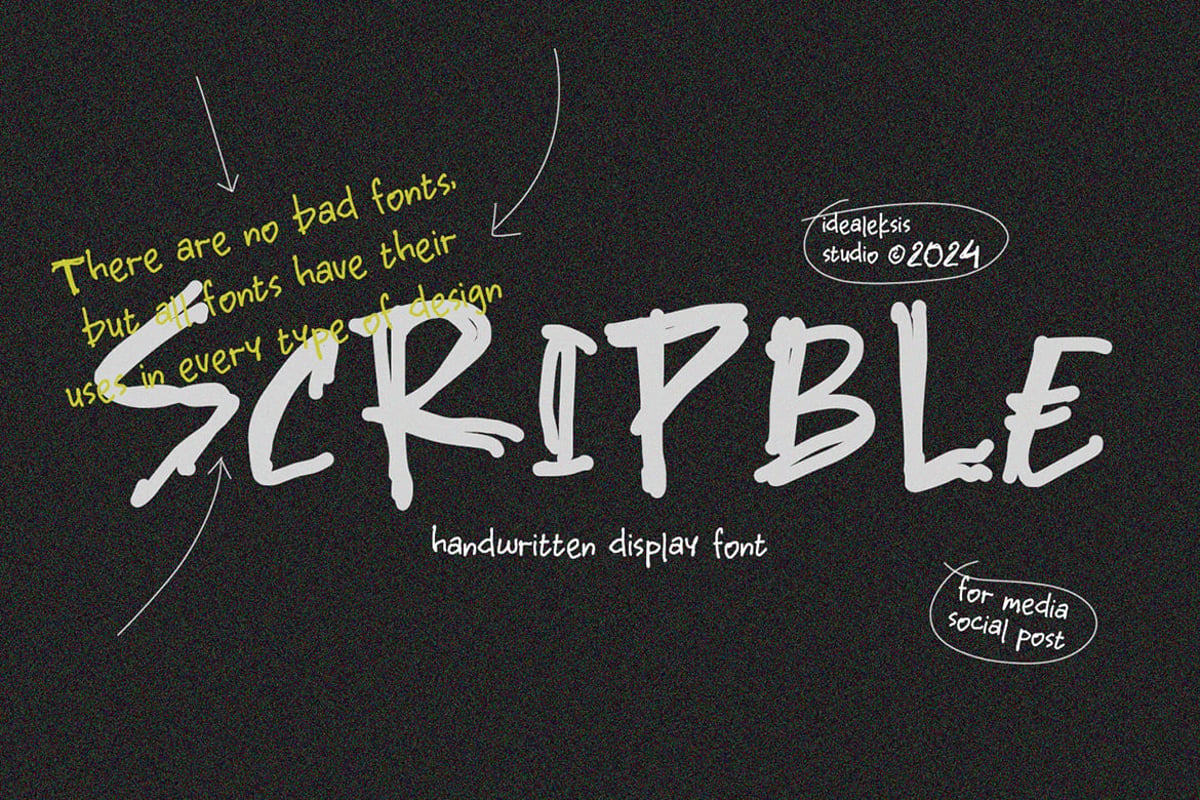
Scripble - Scribbles Handwritten Font
Bring authentic charm to your designs with Scripble's genuine hand-drawn strokes and organic imperfections. This charming handwritten typeface captures the essence of natural handwriting, delivering a personal touch that transforms any design project. Its genuine, hand-drawn appearance creates warmth and authenticity that resonates with viewers. Perfect for invitations, greeting cards, and creative branding projects where you want to stand out with character and personality. Scripble's unique or...